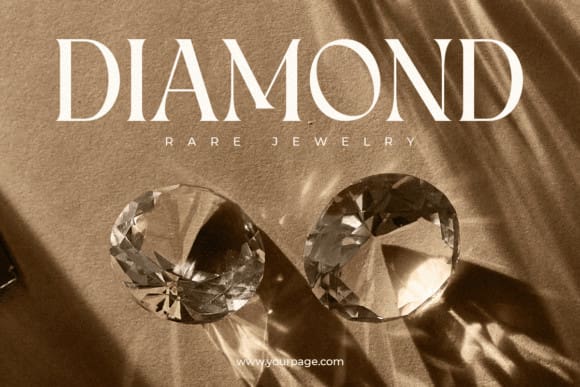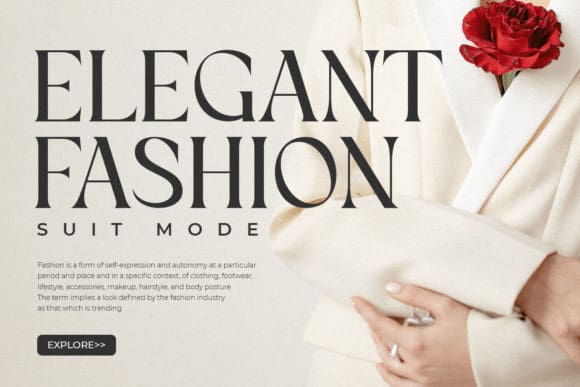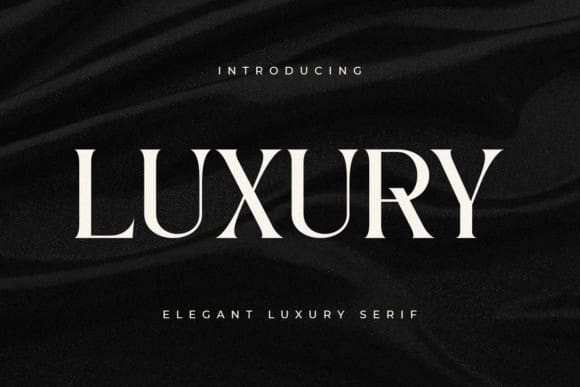
Luxury Font
Luxury Font is an elegant serif font, that features a very delicate and classy look. Not too thin and not too thick, balanced and varied, Luxury was designed to enhance the beauty of your projects